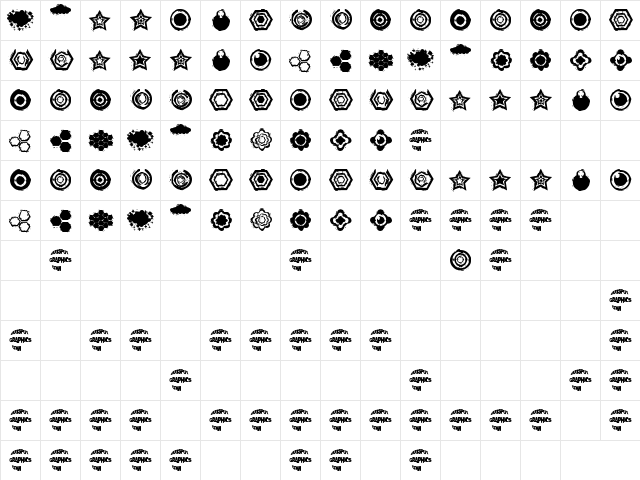
Formz Dingbatz 2 DSG Regular Font Preview
Formz Dingbatz 2 DSG Regular
Design Context for Formz Dingbatz 2 DSG Typeface
Formz Dingbatz 2 DSG is a composed and adaptable typeface that performs quietly and consistently across a wide range of design contexts.